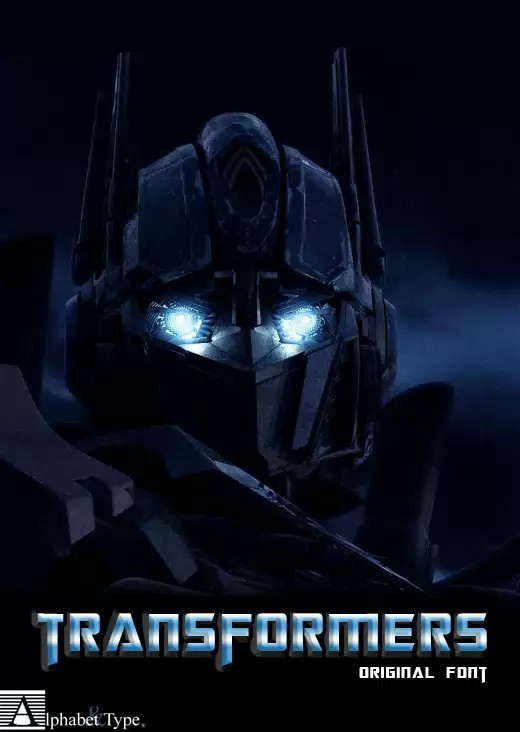
Transformers Movie Font
From eternal conflict between Autobots and Decepticons, new aliens force opposed the Earth.
The original font of the Michael Bay’s film.
| Designer Name: | Alphabet & Type |
| Classification: | Techno / Futuristic Fonts |